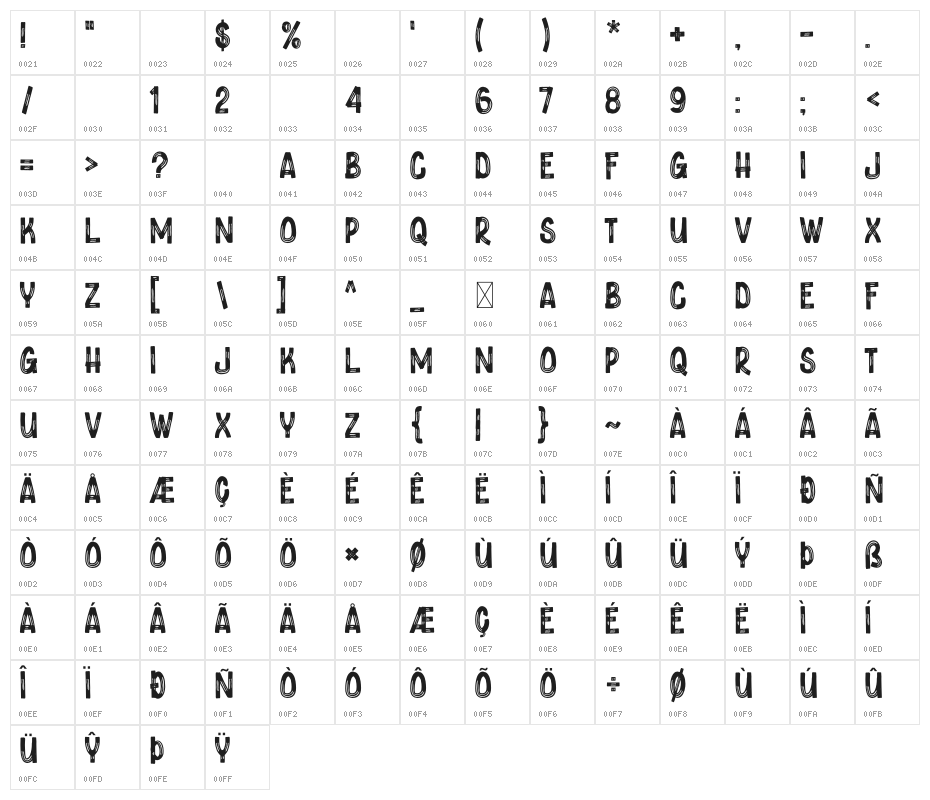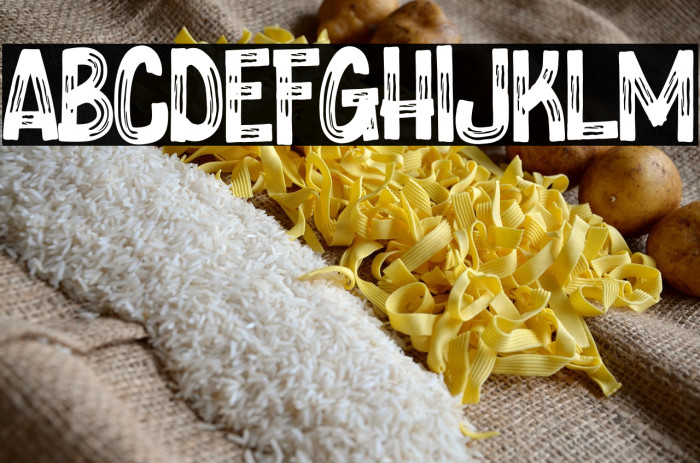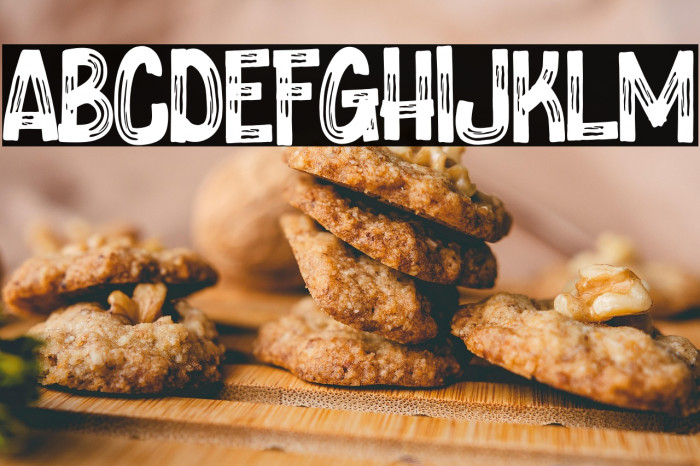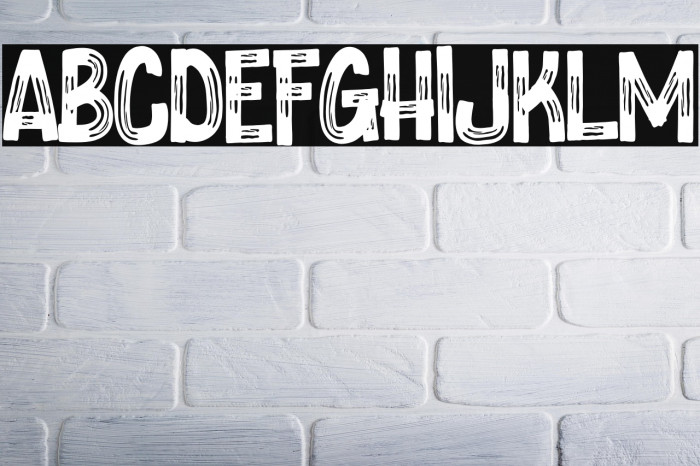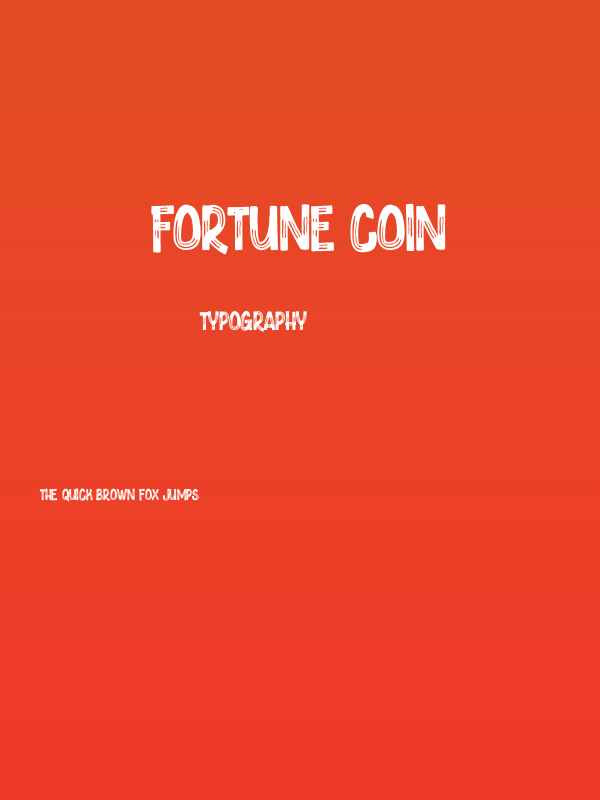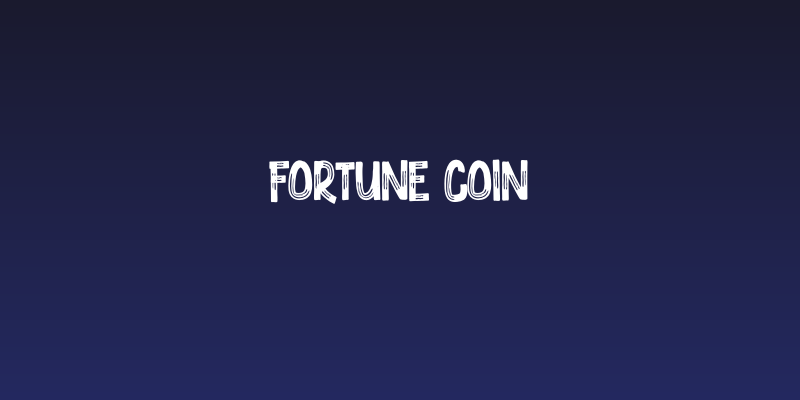
Fortune Coin Font
Fortune Coin Description
This font features a bold and playful design with a hand-drawn aesthetic. The characters are thick and have a textured, sketch-like appearance, giving them a dynamic and energetic feel. The uppercase and lowercase letters maintain a consistent style, with rounded edges and a slightly irregular form that adds to the casual, artistic vibe. The numbers and special characters follow the same design principles, ensuring a cohesive look across all elements. This font is ideal for projects that require a fun and informal touch, such as children's books, posters, or creative branding.
| Overall Style | Playful, Artistic |
| Proposed Projects | Ideal for children's books, posters, creative branding, and playful designs. |